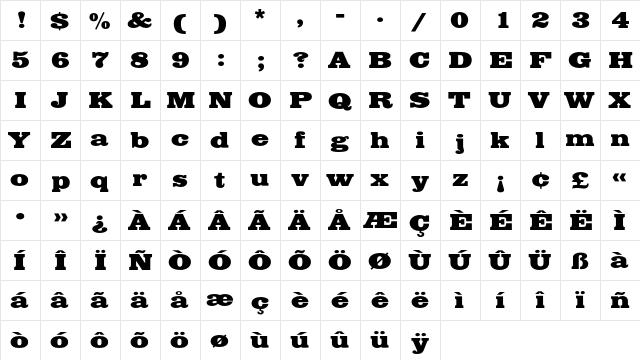
EgyptianEF BoldExtended
Design Context for EgyptianEF Typeface
EgyptianEF features prominent, blocky serifs that give it a confident, grounded presence — equally at home in editorial settings and bold branding work. Its bold stroke weight gives it real presence on the page.
Suited to magazines, political campaign materials, bold packaging, and any setting where authority matters.
Pro Tip: Use EgyptianEF for headlines and subheadings where its slab serifs can make an impression. It also holds up well in mid-size body copy thanks to its sturdy construction.